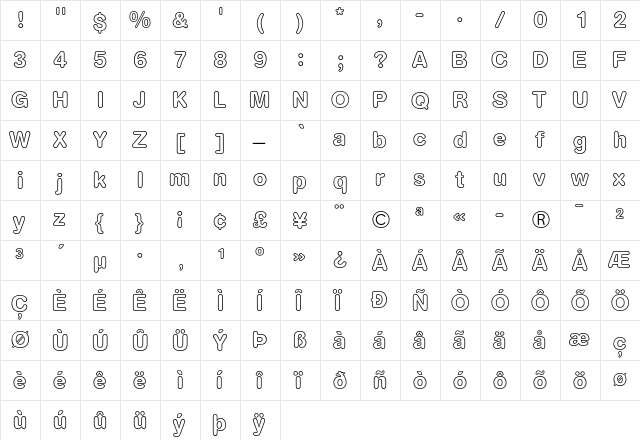
AG Book Rounded Bold Outline Font Preview
AG Book Rounded Bold Outline
AG Book Rounded Bold Outline Font Details
| Style | Bold Outline |
Design Context for AG Book Rounded Typeface
AG Book Rounded brings ornamental detail and strong personality to headlines and identities, where visual impact matters more than quiet functionality. Its bold stroke weight gives it real presence on the page.